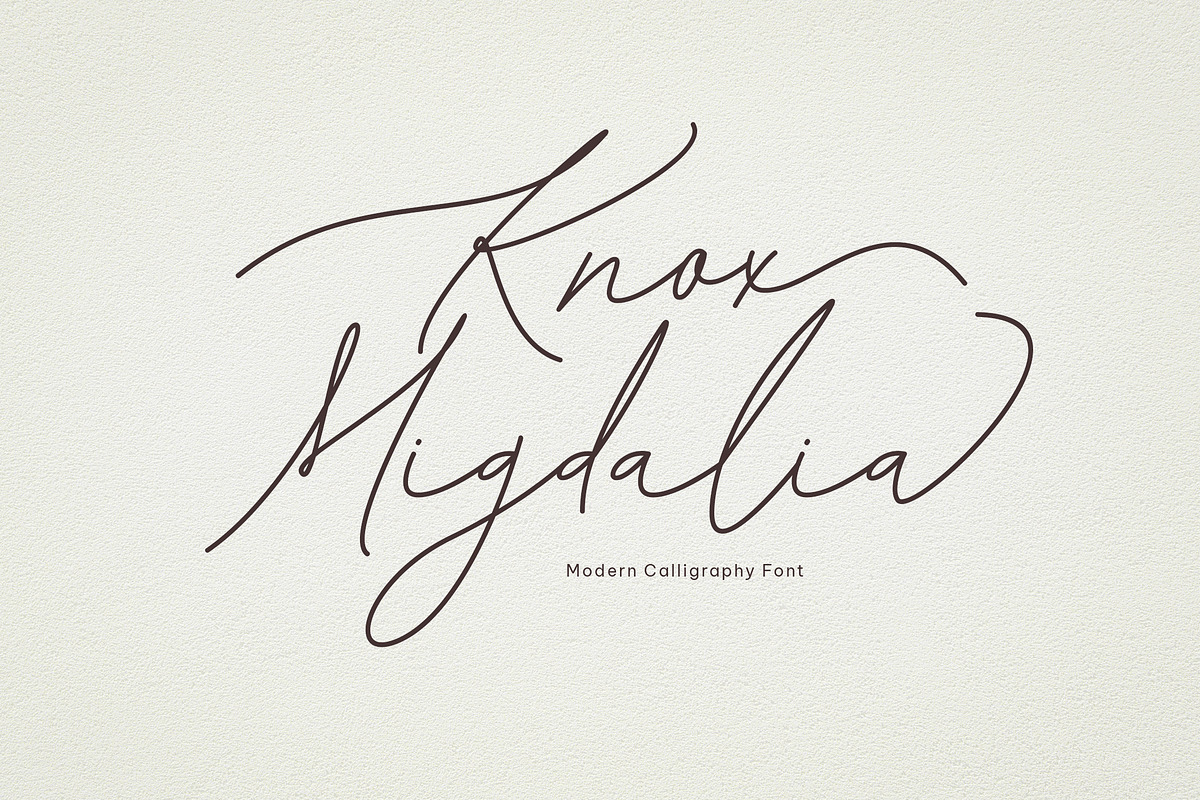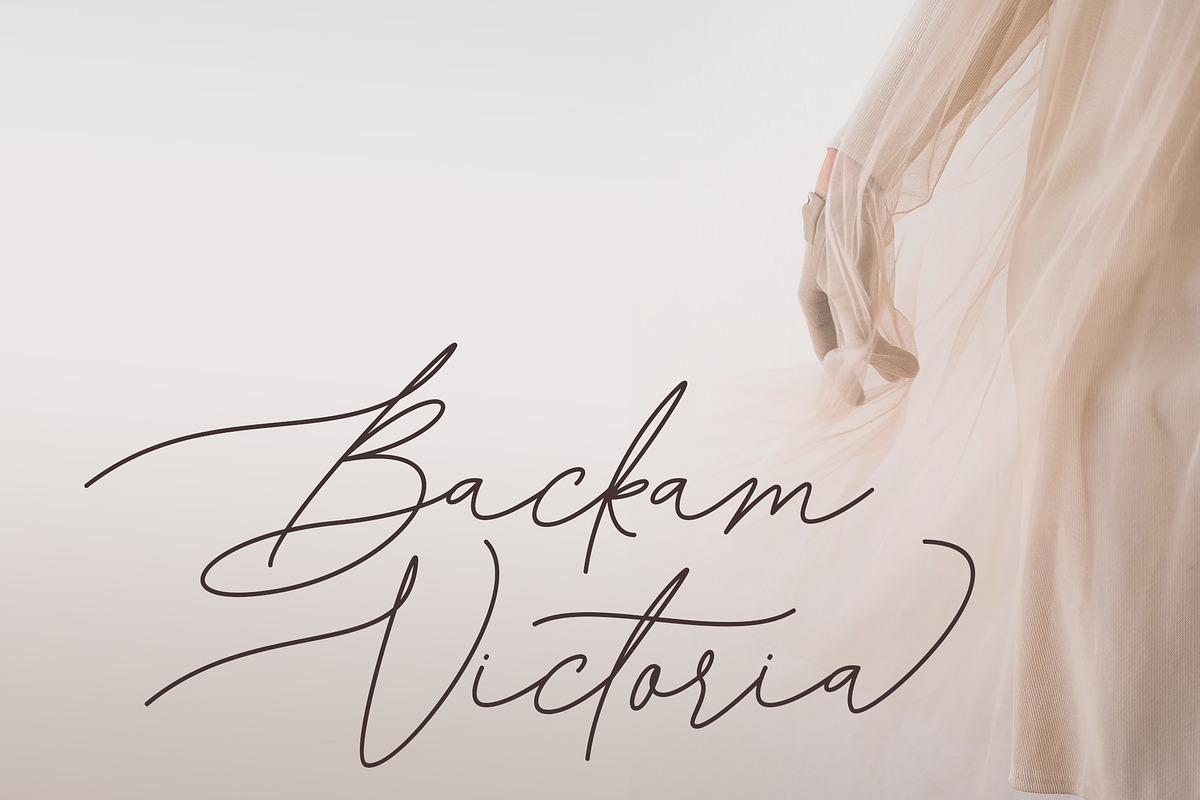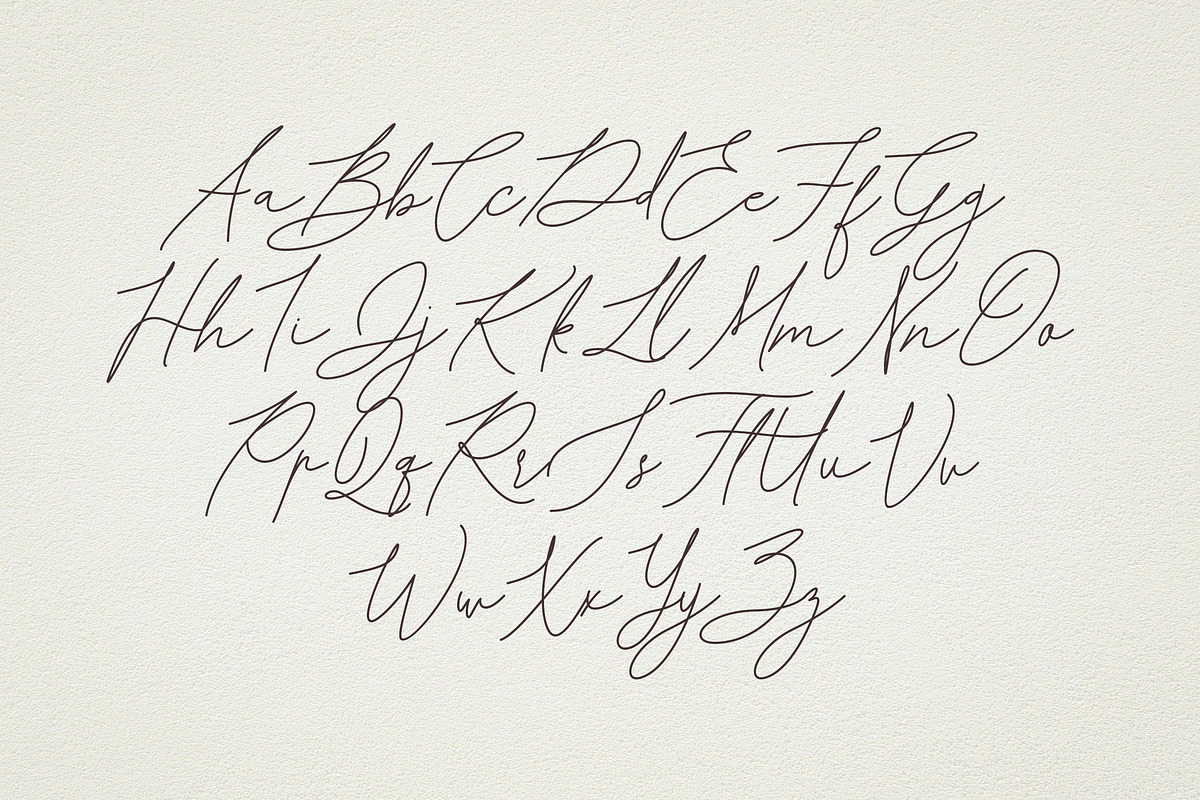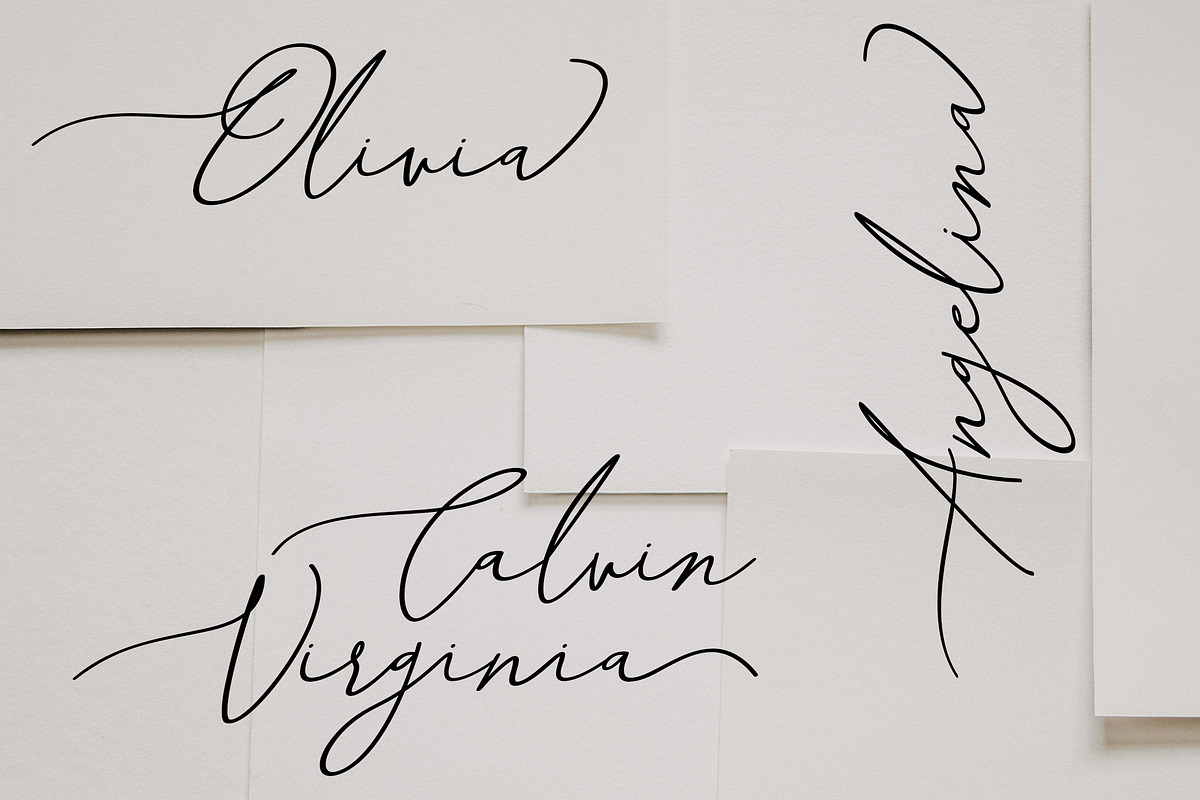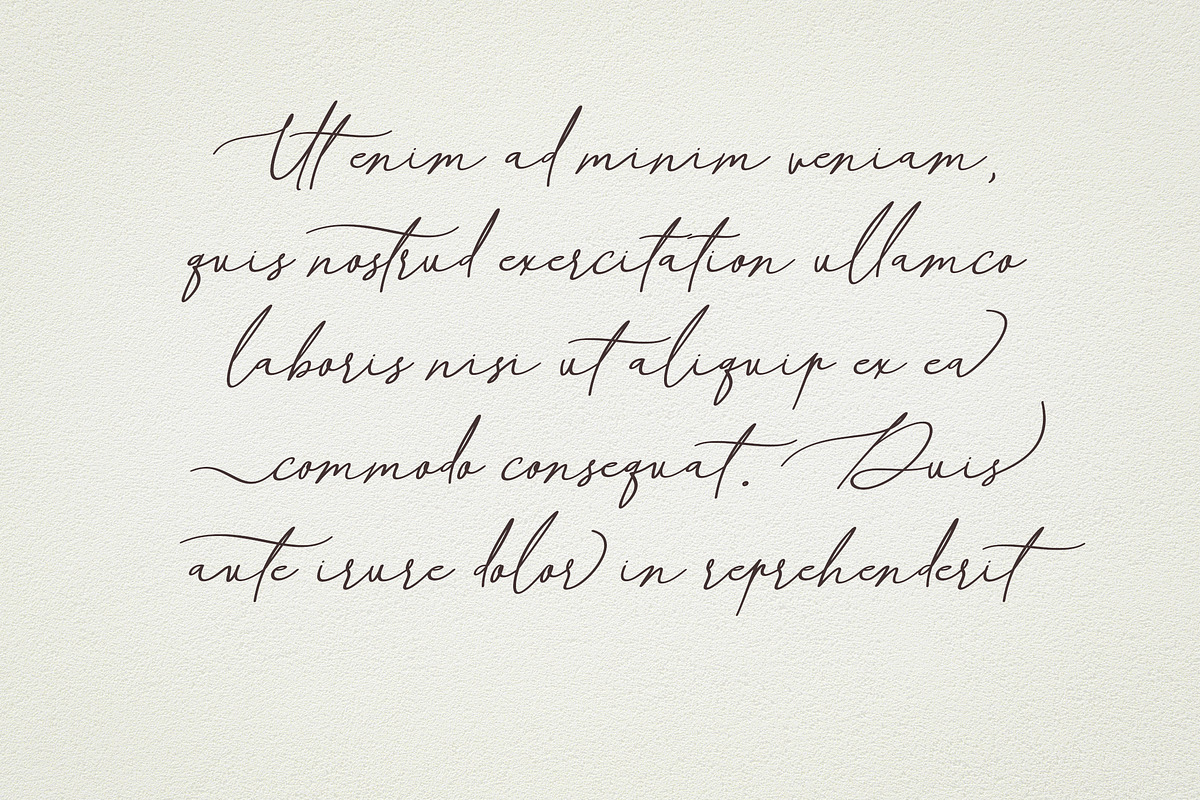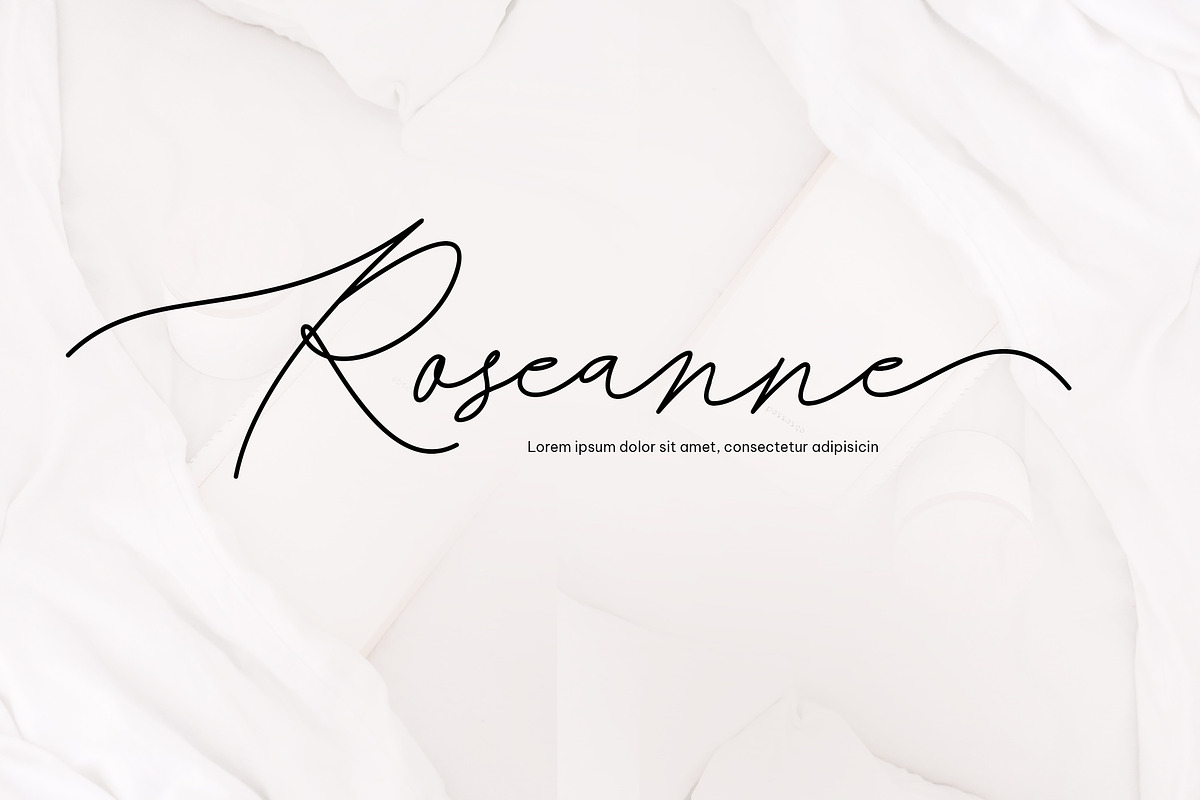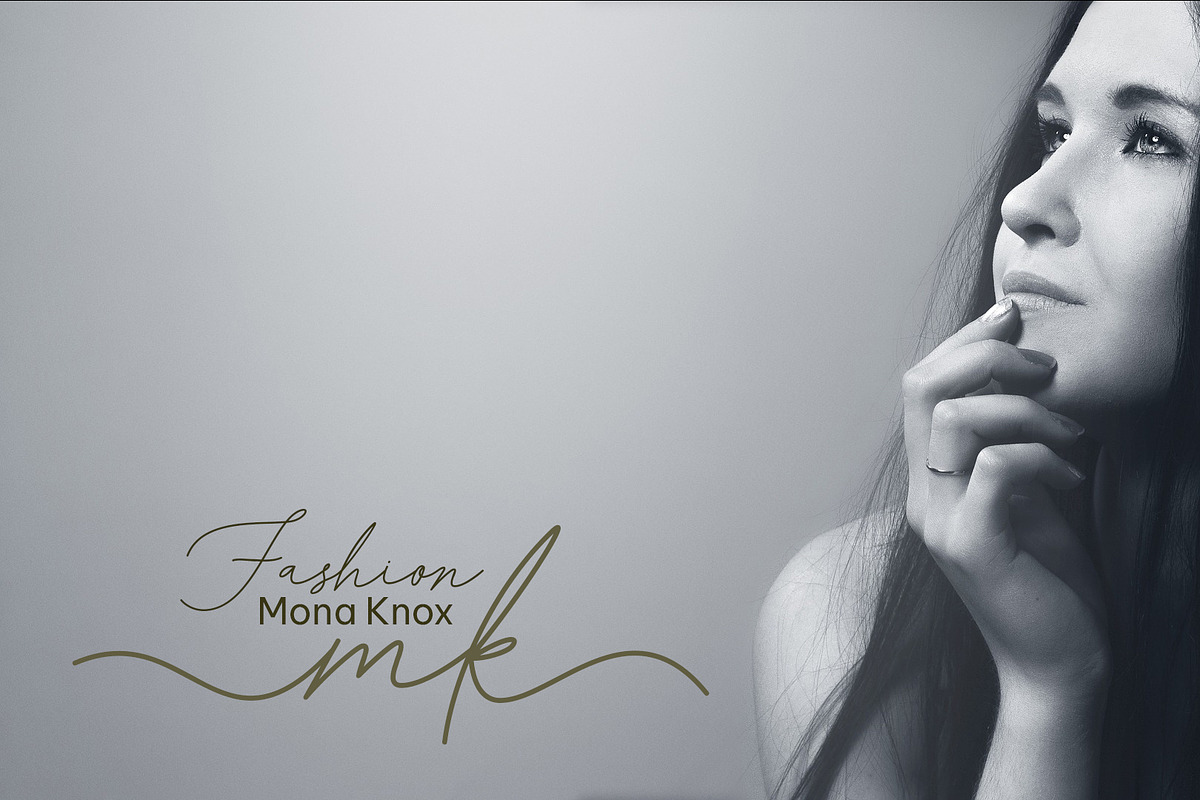
Knox Migdalia - modern calligraphy
Knox Migdalia is modern and classy calligraphy font, that comes with beautiful ligatures and lovely alternates. Knox Migdalia has a very beautiful stroke and it will suit various wedding invitations, fashion cards, and more. Font includes all lowercase and uppercase characters, numbers, punctuation, swashes, alternate ,an array of standard ligatures and a selection of international characters as well . This font is PUA encoded which means you can access all of the glyphs and swashes with ease! (please type the preview to see if I have what you need!)